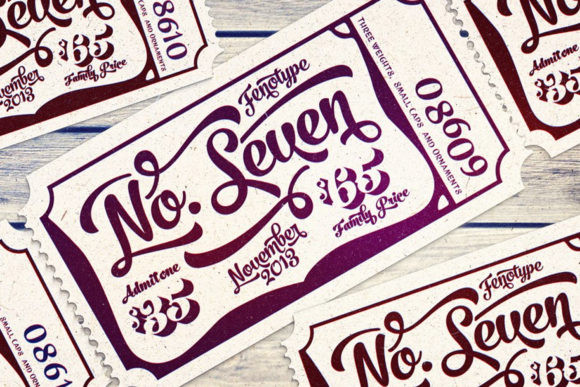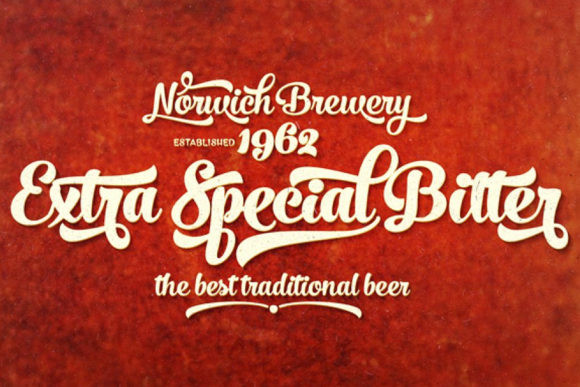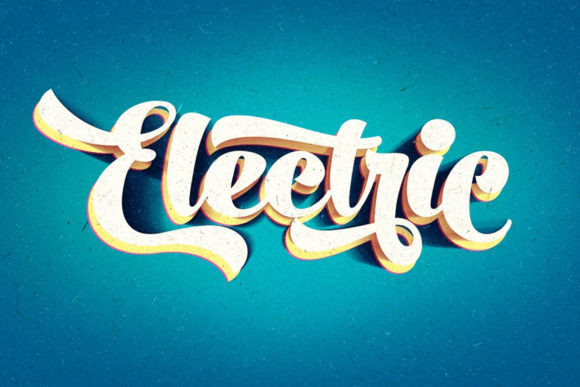
No. Seven Font
No. Seven is a bold brush handwritten font. This amazing font family contains three weights, an ornament set and a block capital “small caps” font. Use it to add that special retro touch to any design idea you can think of!